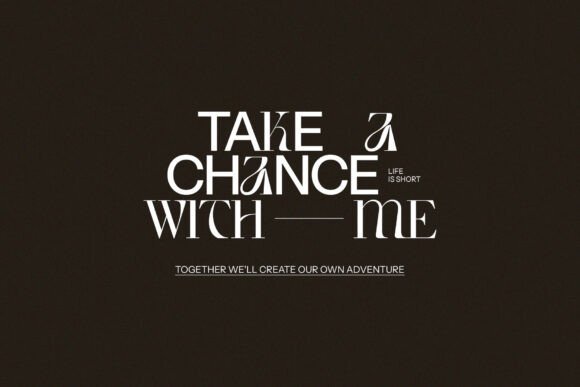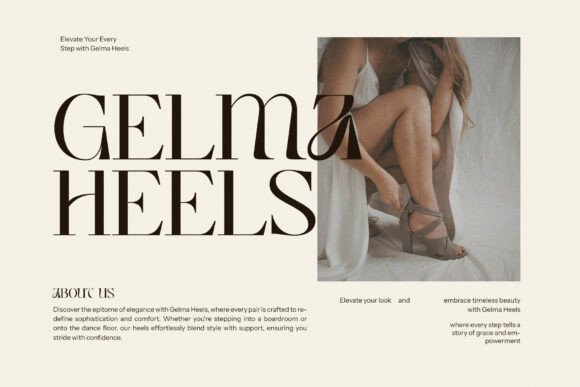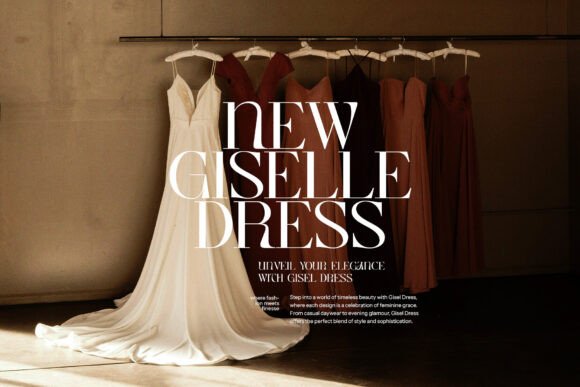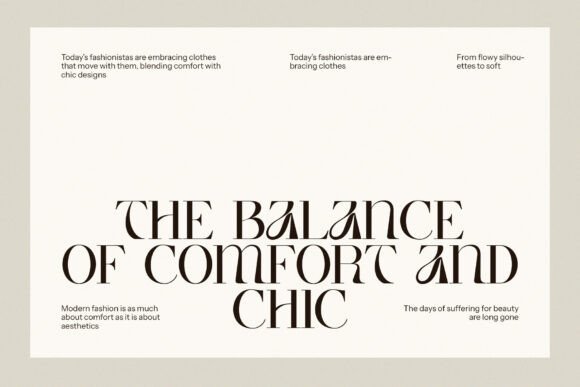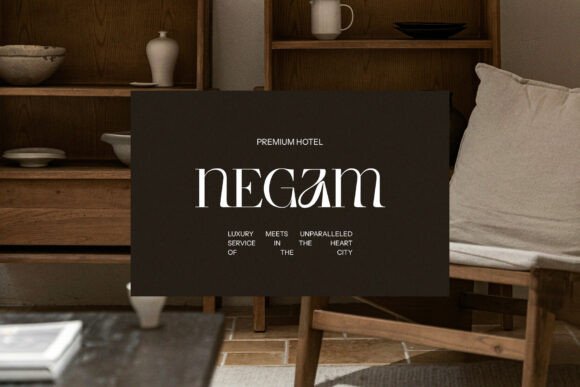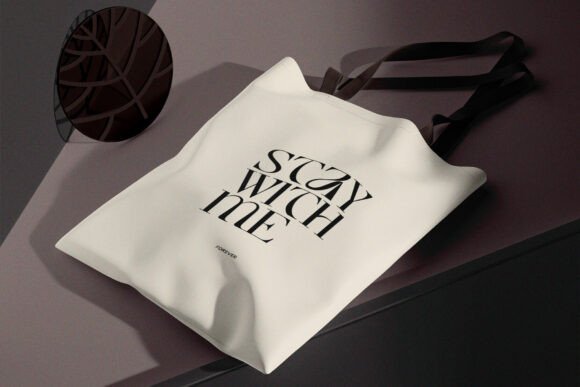
Introduction to Kating Font Font
Fonts play a crucial role in design, and the Kating Font font is a typeface that brings both character and versatility to any project. Whether you’re working on a branding project, a website, or a print design, the Kating Font font offers a unique style that can elevate your work.
Kating an Elegant Serif is a stylish font that combines classic charm with modern elegance.
Its soft curves and sharp edges give it a refined look, making it perfect for invitations, headlines, or any design that needs a touch of sophistication This font stands out while remaining easy to read, adding beauty to any project.
The Kating Font font is more than just a typeface – it’s a design tool that helps you communicate your message with style and clarity. Its unique character set and versatile design make it suitable for a wide range of applications, from elegant invitations to bold headlines.
With its carefully crafted letterforms and balanced proportions, the Kating Font font ensures readability and visual appeal across all mediums.
The Kating Font font stands out with its unique design, exceptional readability, and versatility across various design applications.